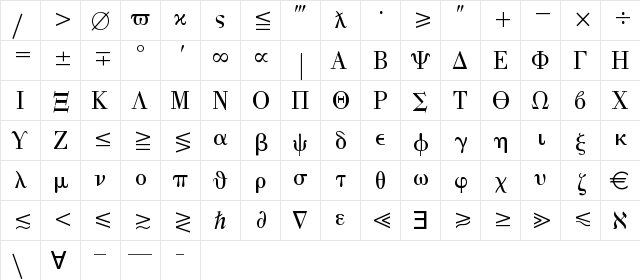
Universal Math 1 Normal
Design Context for Universal Math 1 Typeface
Universal Math 1 is a composed and adaptable typeface that performs quietly and consistently across a wide range of design contexts.